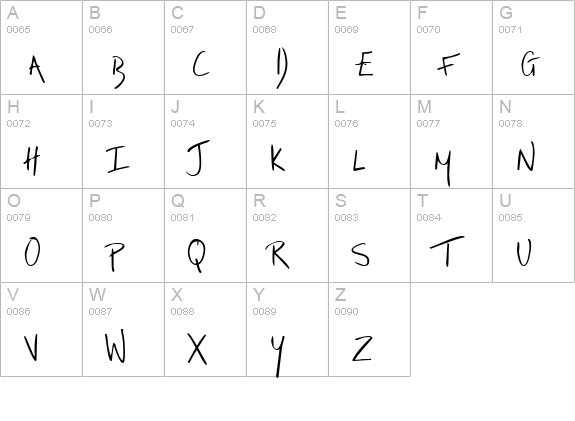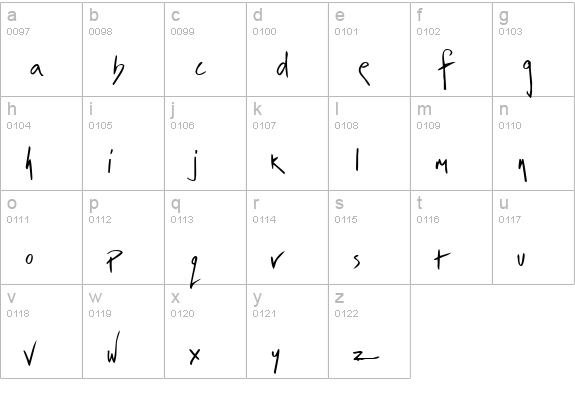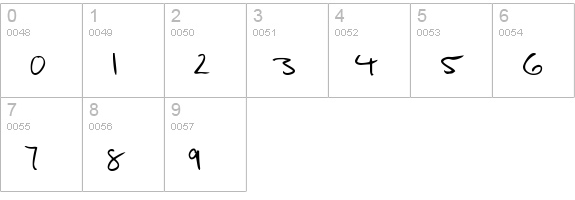
irrep Font Details
Introducing the magnificent Irrep font, a perfect blend of elegance and modernity. This font is a true work of art, meticulously crafted to add a touch of sophistication to any project. With its sleek and stylish design, Irrep effortlessly captures attention and commands a powerful presence. What sets Irrep apart is not only its stunning aesthetics, but also its versatility. Whether you are designing a logo, creating a poster, or working on a branding project, this font will exceed your expectations. Its unique and distinctive characters are bound to make a lasting impression on your audience. Irrep is not only visually striking, but it also offers seamless legibility. Each letter is carefully designed to ensure clarity and readability, making it an excellent choice for both headings and body text. The balance between its clean lines and subtle curves creates a harmonious visual experience that is both pleasing to the eye and easy to read. One of the most remarkable aspects of Irrep is that it is available for free. Yes, you read that right! This exceptional font can be freely downloaded at FontsMarket.com, giving you the opportunity to enhance your designs without any additional cost. This accessibility ensures that creativity knows no bounds, allowing designers of all levels to make the most of this extraordinary typeface. So why wait? Unleash your creative potential and elevate your designs with the captivating Irrep font. Download it for free at FontsMarket.com and witness the transformative power it brings to your projects. Embrace the elegance, embrace the modernity, and create something truly remarkable with Irrep.